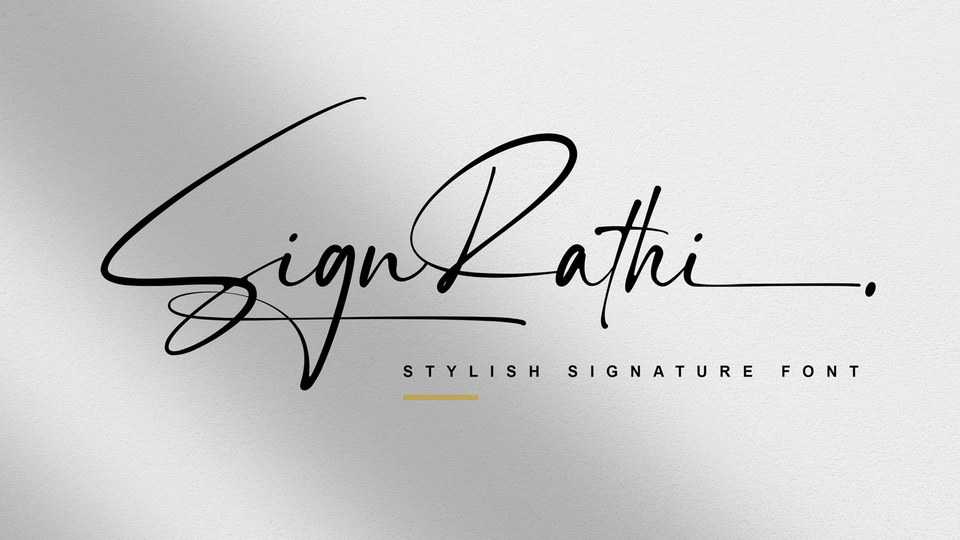
Download SignRathi font, a perfect signature typeface with a natural and stylish flow. SignRathi is perfect for many different project such as logos and branding, invitation, social media, photography watermark, special events and more.